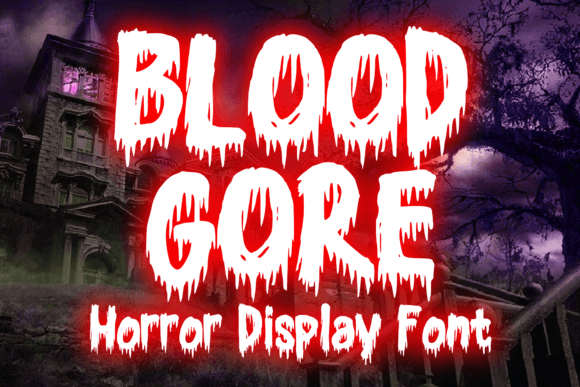
Get Ready to Unleash the Horror with Blood Gore Font
Have you ever found yourself browsing through old horror movie collections or comic books, and suddenly you’re struck by the eerie, dripping blood that seems to seep off the page? That’s exactly the kind of eerie, spine-tingling effect that the Blood Gore Font can bring to your designs.
As a designer, you’re always on the lookout for that special something that sets your creations apart from the rest. And with the Blood Gore Font, you’ll have the perfect tool to add a touch of horror to any project. Whether you’re designing merchandise for a metal band, creating a spooky atmosphere for a Halloween party, or simply want to add a dash of darkness to your book designs, this font is sure to deliver.
Blood Gore Font Key Features
- Font Style: A distressed, horror-themed font designed to resemble blood and gore.
- Unique Characteristics: Features a unique blend of bold, gothic letters with a distressed texture, creating a haunting and eerie atmosphere.
Blood Gore Font Review
Overall, the Blood Gore Font is an interesting and unique font that’s sure to make an impact on any project it’s used in. Here are some things that work well:
- ✨ Unique design: The font’s gothic and horror-inspired aesthetic is unlike anything I’ve seen before. It’s perfect for projects that need a touch of darkness and edginess.
- ✨ Effective for headlines: The font’s bold and dramatic design makes it ideal for use as a headline or title font.
- ✨ High level of customization: The font comes with a range of customization options, allowing designers to adjust the font’s appearance to suit their needs.
- ⚠️ Limited legibility: Due to its complex design, the font can be difficult to read at smaller font sizes or in situations where clarity is crucial.
- ⚠️ Limited compatibility: The font may not be compatible with all software or systems, which could cause issues for designers working in different environments.
In my opinion, the Blood Gore Font is a great choice for designers looking to add a touch of horror or edginess to their project. While it may have some limitations, its unique design and high level of customization make it a worthwhile investment for designers who need a font that stands out.
For best results, use the Blood Gore font in conjunction with dark or bold backgrounds to create a dramatic effect. Common use cases include horror movie posters, video game graphics, and dark fantasy artwork.
Alternatives to Blood Gore Font
Font Awesome
Font Awesome is a popular font icon library that can be used to convey gore or horror themes in a more subtle and versatile way. It offers a wide range of icons that can be used to represent various elements, from blood splatters to skulls. Use Font Awesome when you need to add a touch of horror or gore to your design without being too explicit.
Compared to Blood Gore Font, Font Awesome is more versatile and can be used in a variety of contexts, from web design to mobile apps. It’s also more subtle, making it suitable for designs where you want to convey a sense of horror or gore without being too over-the-top.
Impact
Impact is a sans-serif font that can be used to add a sense of drama or intensity to your design. It’s particularly effective when used in bold or italic styles to convey a sense of horror or gore. Use Impact when you need to add a touch of darkness or intensity to your design without being too explicit.
Compared to Blood Gore Font, Impact is more versatile and can be used in a variety of contexts, from web design to print materials. It’s also more subtle, making it suitable for designs where you want to convey a sense of horror or gore without being too over-the-top.